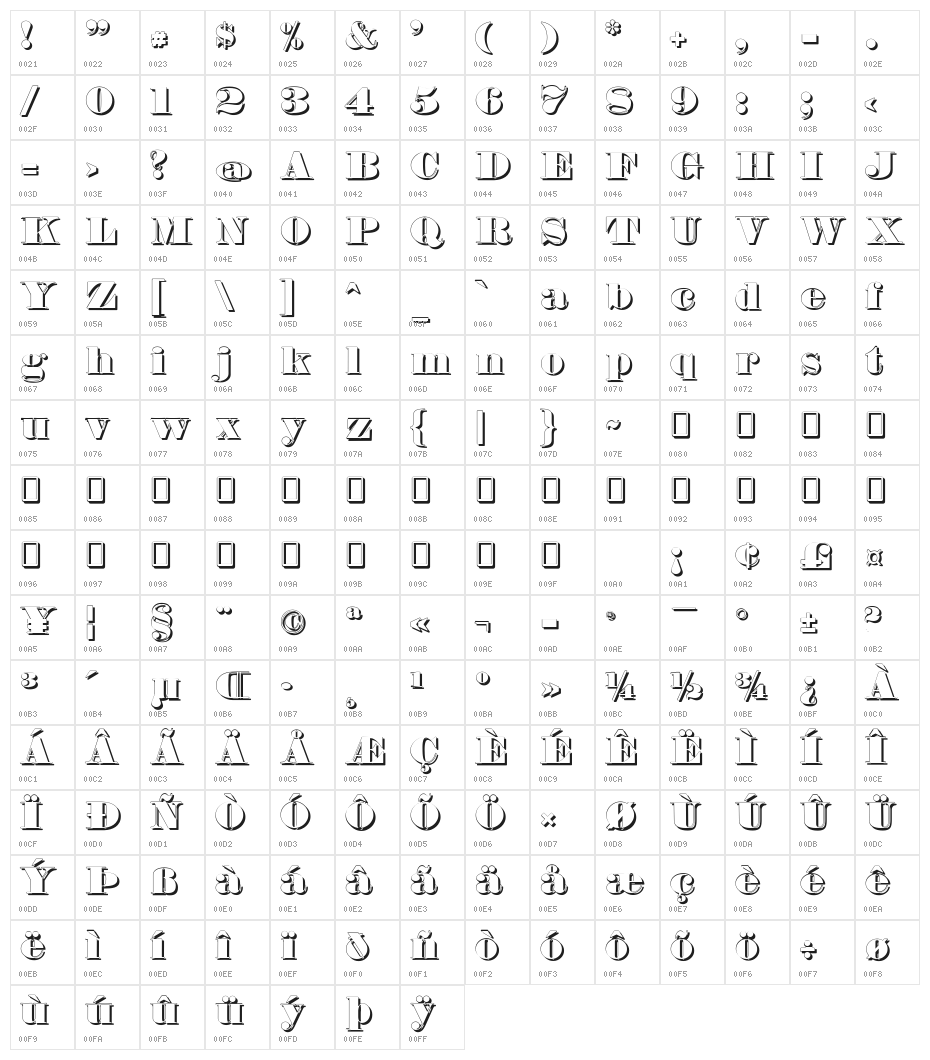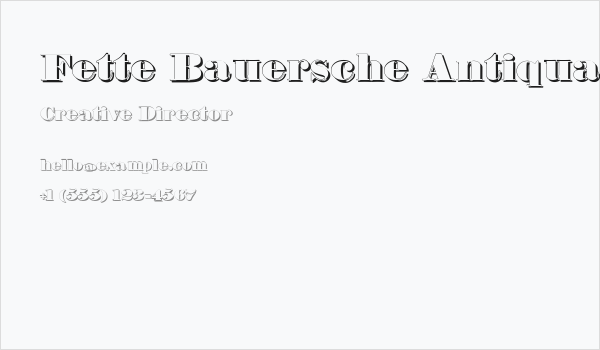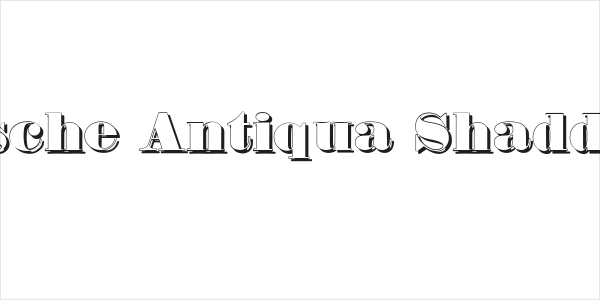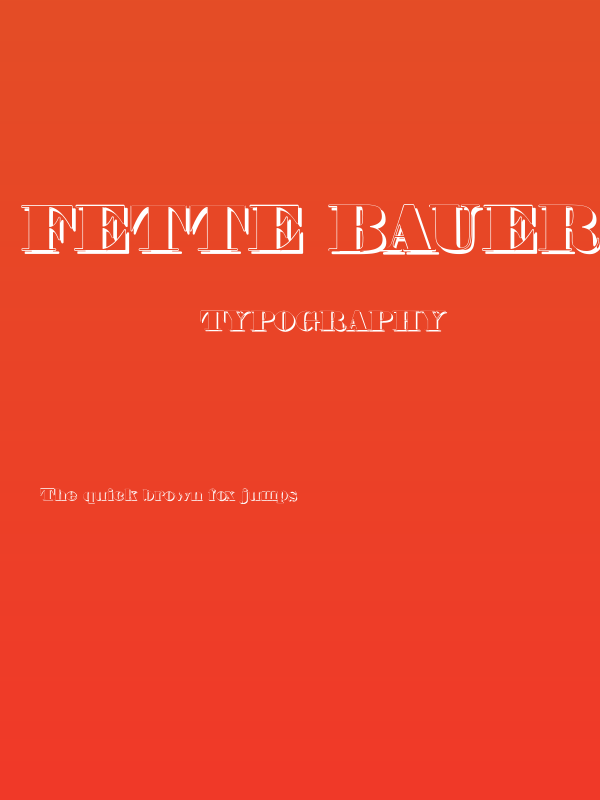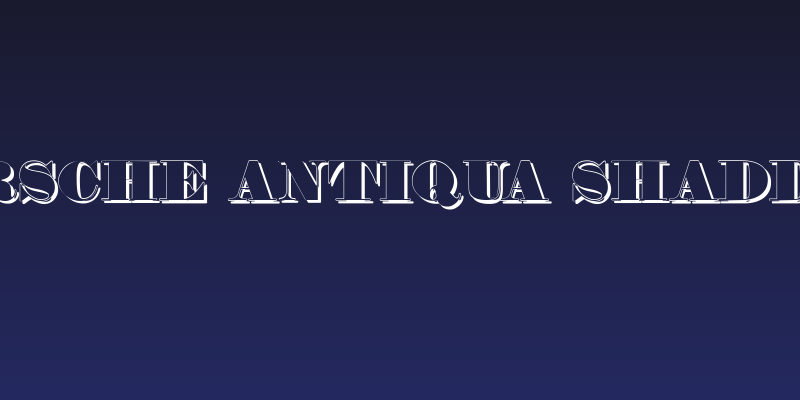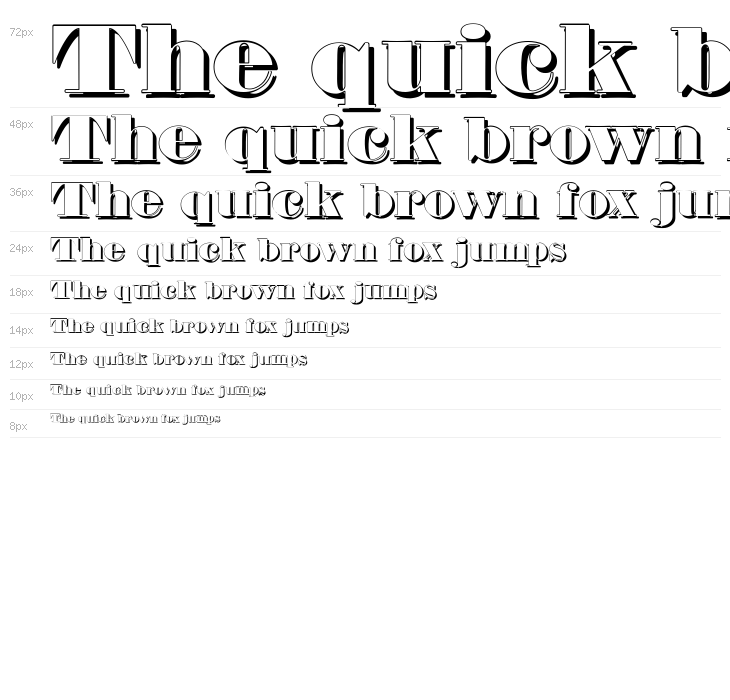
Fette Bauersche Antiqua Shaddow UNZ Pro Font
Fette Bauersche Antiqua Shaddow UNZ Pro Description
This font features a bold and dramatic serif style with a distinct shadow effect that gives it a three-dimensional appearance. The uppercase letters are strong and commanding, while the lowercase letters maintain a consistent weight and style. The numerals are equally bold, ensuring readability and impact. The special characters are designed to match the overall aesthetic, providing a cohesive look across all glyphs. The shadow effect adds depth and a vintage feel, making it suitable for projects that require a touch of elegance and sophistication.
| Proposed Projects | Ideal for use in posters, book covers, branding, and any design that requires a classic yet striking appearance. |